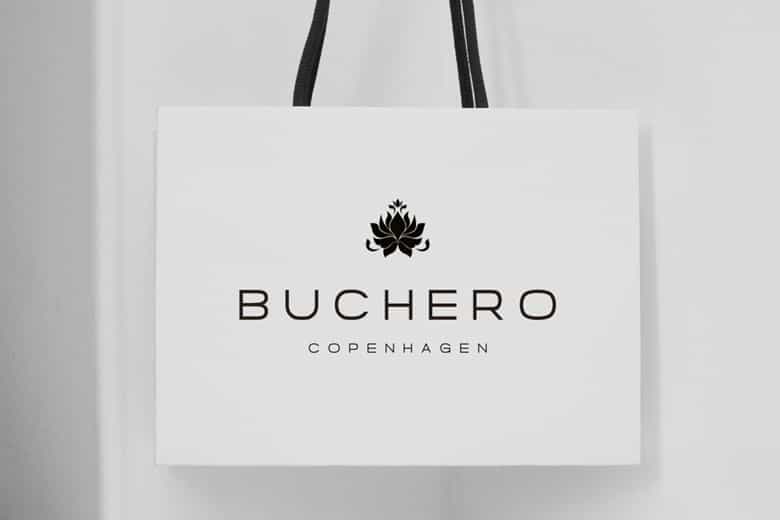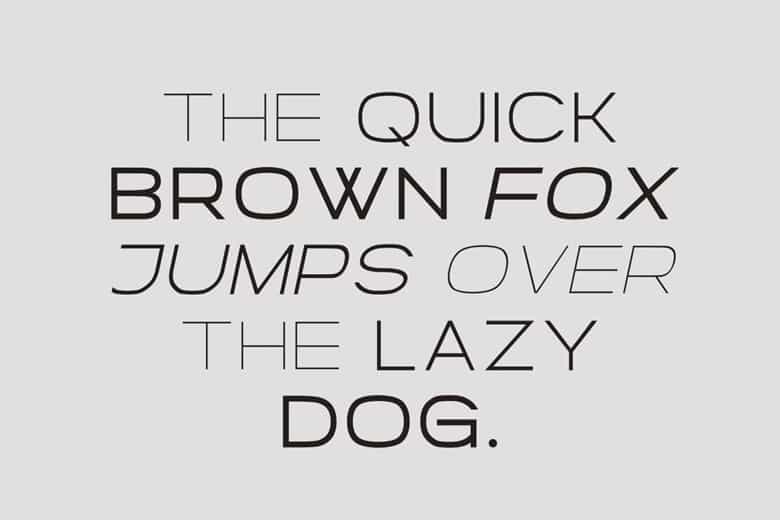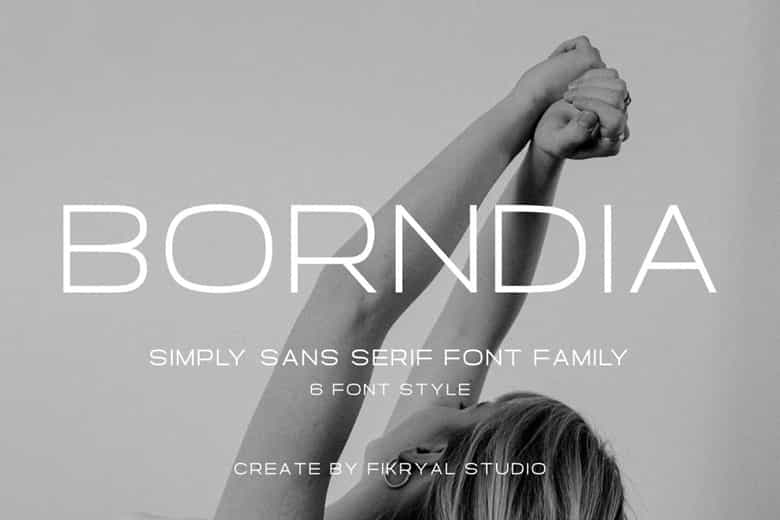
Borndia is a new and fresh sans serif font, which is both minimalistic and universal in its design. Featuring six styles: These are light, light Italic, regular, Italic, bold and bold Italic, making this font suitable for use in branding, editorial design, websites and applications. Being designed in a very simple way, Borndia can give a professional touch to any project.